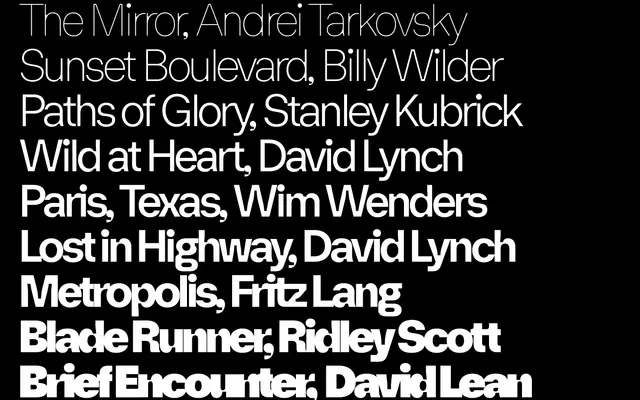
Ranua
Güneş Muhittin · Muhittin Güneş · 2019
A display sans by Muhittin Güneş built around deep ink traps and precise cuts that maintain clarity at large sizes.
Across 18 cuts spanning Fine to Black with matching italics, Ranua uses deliberate incisions in its forms to prevent strokes from closing up in dense or oversized settings. The result sits between neutral and expressive: structured enough for bold editorial compositions, distinctive enough to carry its own quiet presence on posters and screens. Released in March 2019 and updated to version 003 in early 2026, it covers 761 glyphs.
Classified as Sans Serif by the foundry, with a display orientation driven by deep ink traps and cuts designed for large-size clarity rather than continuous text use.